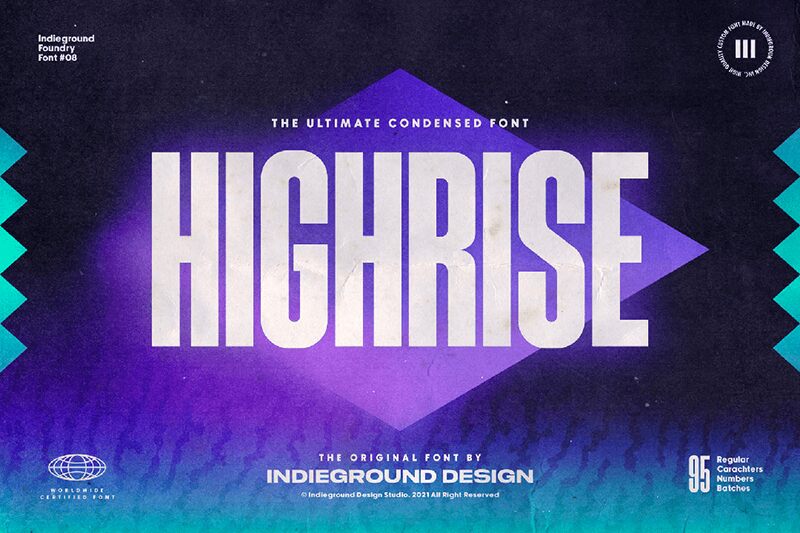
Introducing HighriseDemo Condensed – a narrow sans serif font from the Highrise font family, designed by Indieground Design. Perfect for creating professional logos, branding materials and titles, this basic yet stylish font will make any project stand out.
HighriseDemo Condensed
Indieground Design